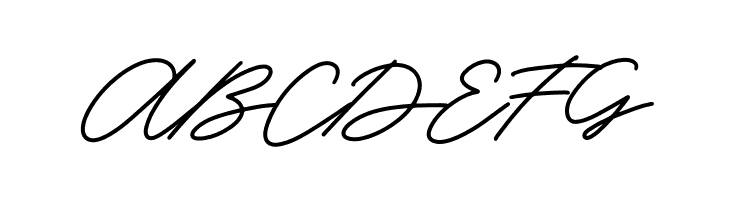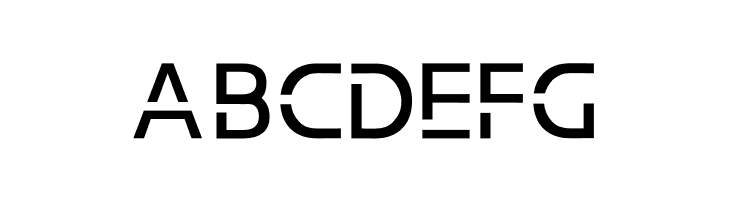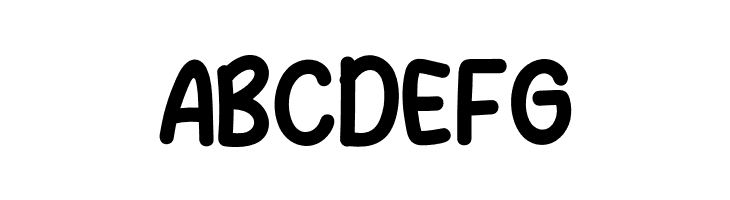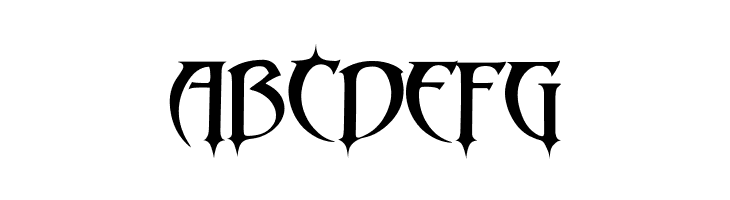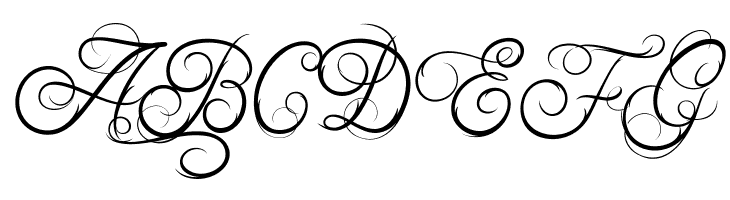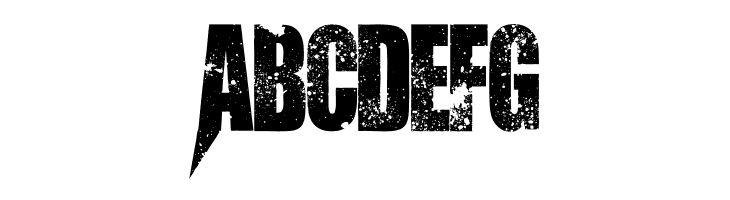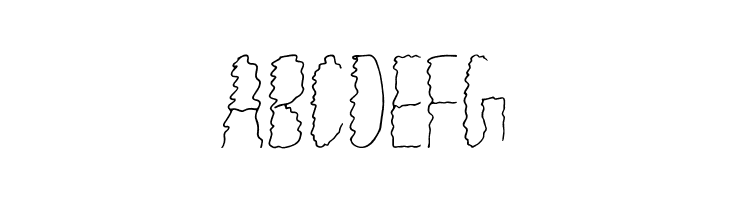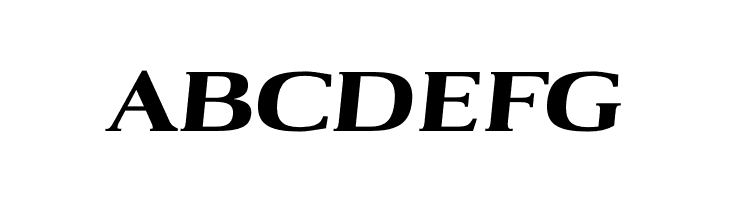
A wavy, hand-drawn font with a whimsical, energetic style.
A bold, italic serif font with dynamic strokes and elegant curves.
An ornate and decorative script font with intricate swirls and flourishes.
A gothic-inspired font with sharp, angular edges and dramatic serifs.
A playful, rounded font with a hand-drawn, whimsical style.
A playful, handwritten font with dynamic strokes and a casual style.
A bold, distressed font with a grunge texture for impactful designs.
A modern, geometric stencil font with a bold and industrial aesthetic.
A flowing, cursive font with elegant, connected strokes.
A graceful and elegant script font with flowing, intricate loops and swashes.